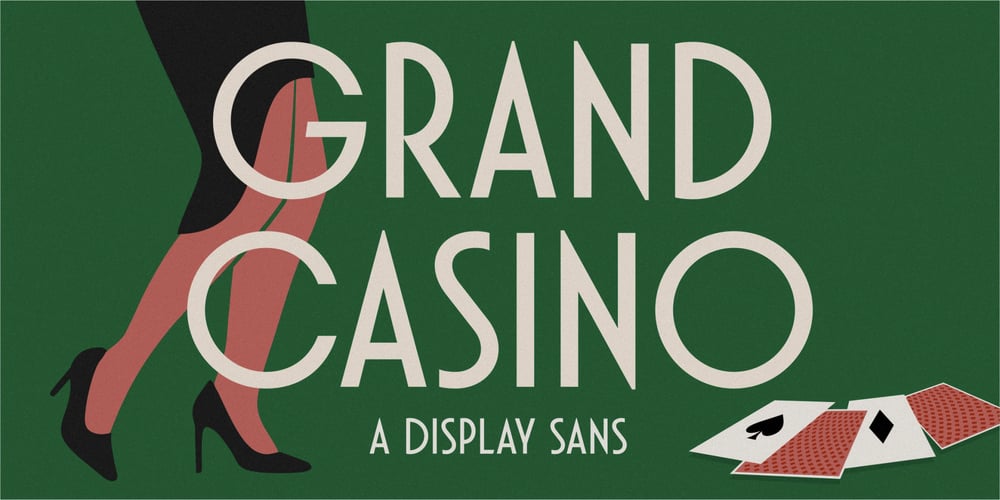
Grand Casino Font Family was designed by Annas Alam Yahya and published by Letteralle. Grand Casino contains 1 styles and family package options. Grand Casino is an uppercase sans serif font with a retro and minimal style. Grand Casino covers all kind of graphic design projects.